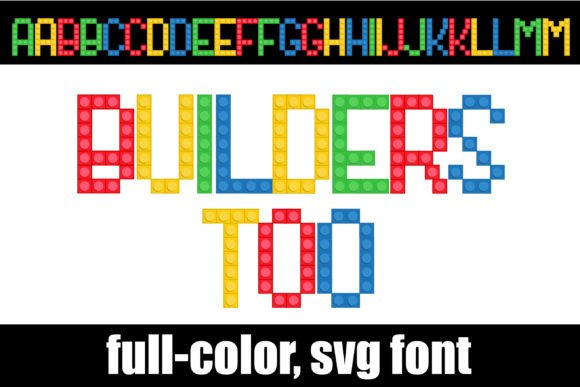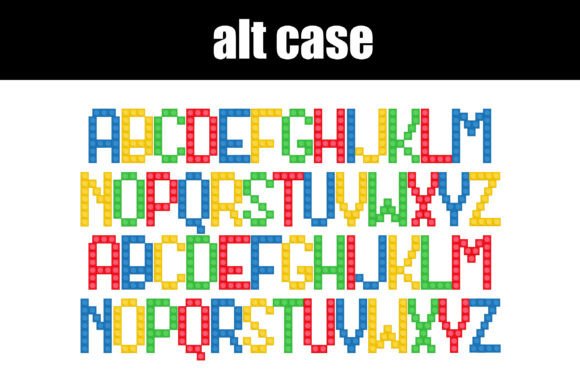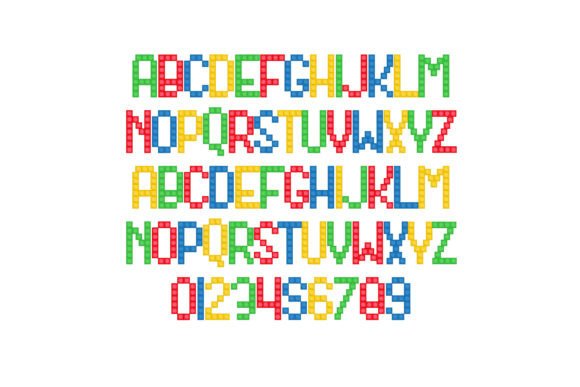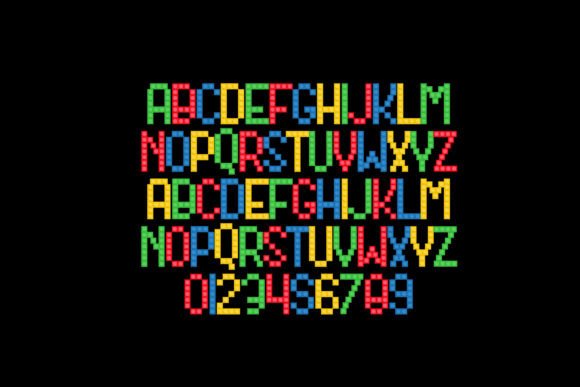
Builders Too Font
About the Builders Too Font
Discover the charm of Builders Too Font. This font is a perfect blend of modern aesthetics and classic appeal. This full-color font features a simple alphabet made out building blocks. There is an alt case w/ additional colors you can access through your system or Silhouette’s glyph map. This font works best for titles, displays, posters and more. Please note color fonts will show as black in non compatible programs. This font type is compatible with Silhouette Studio.